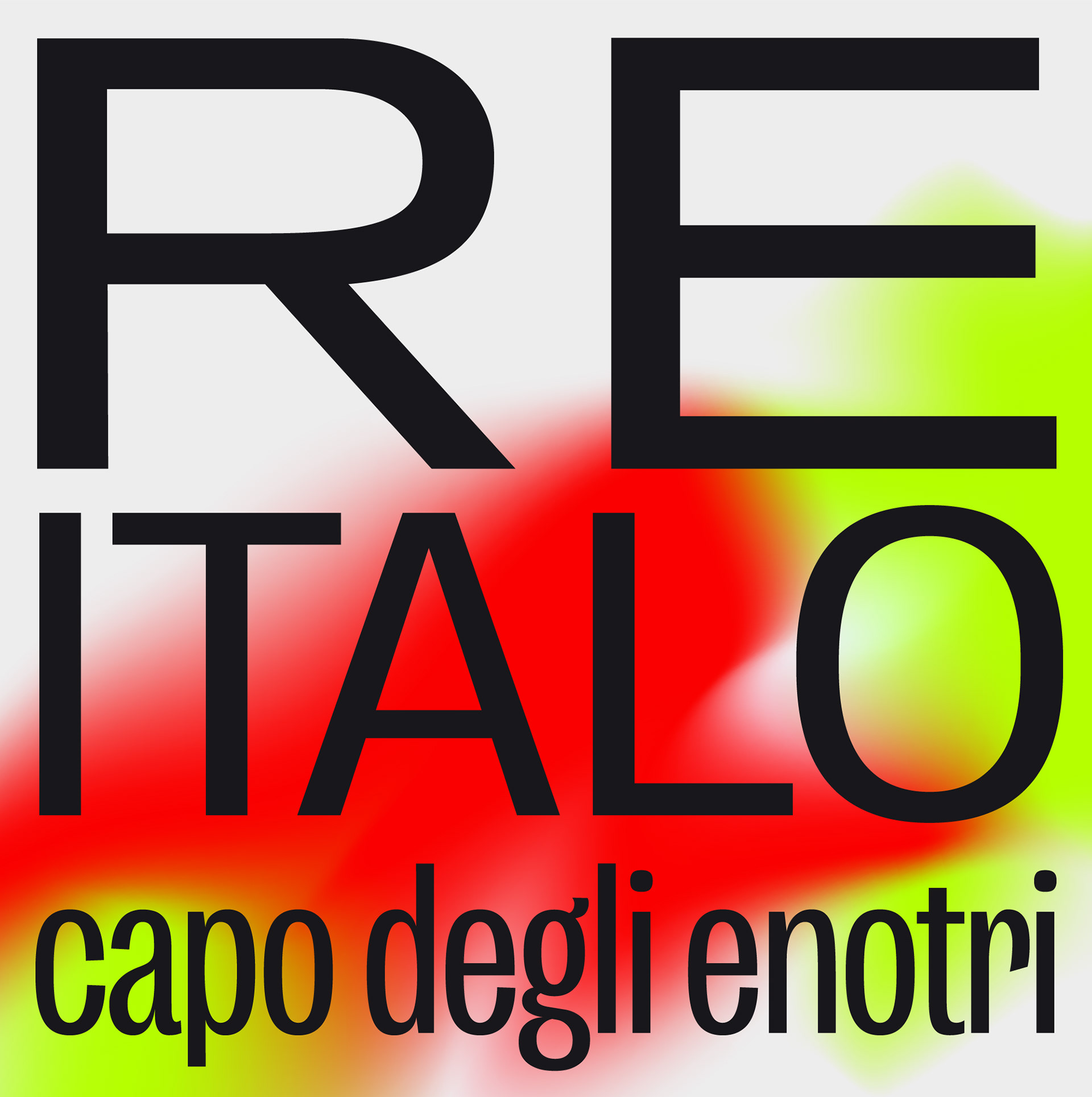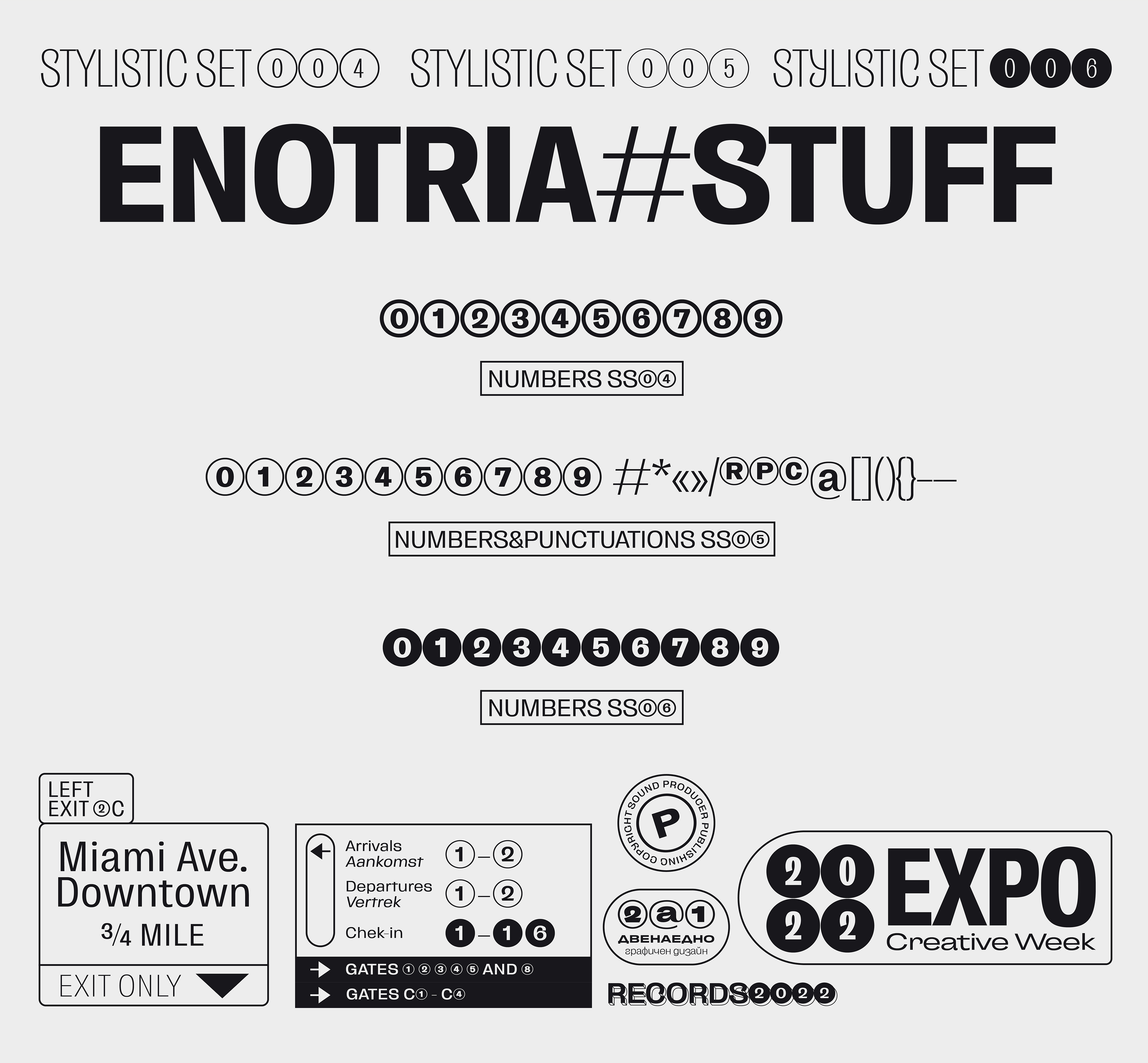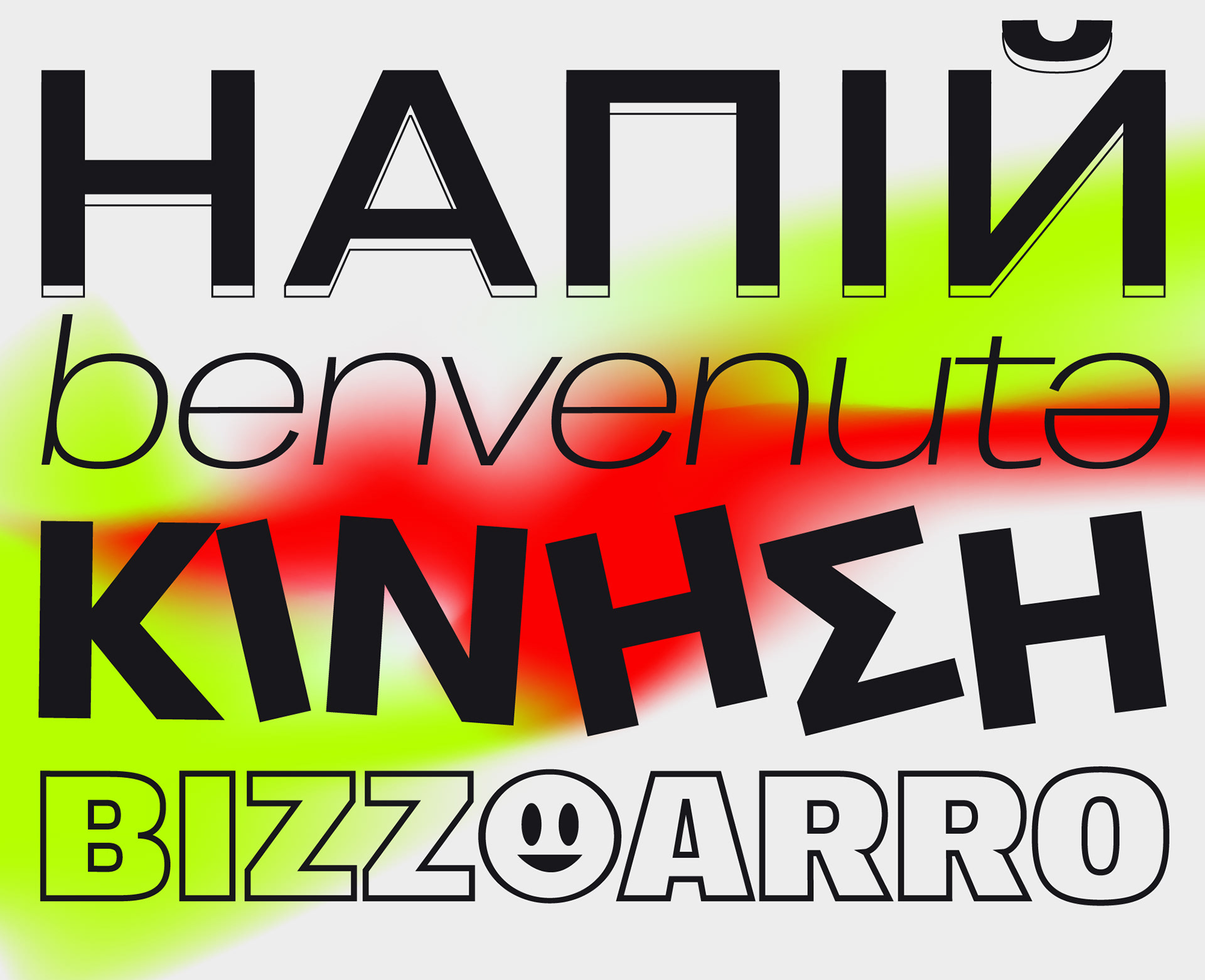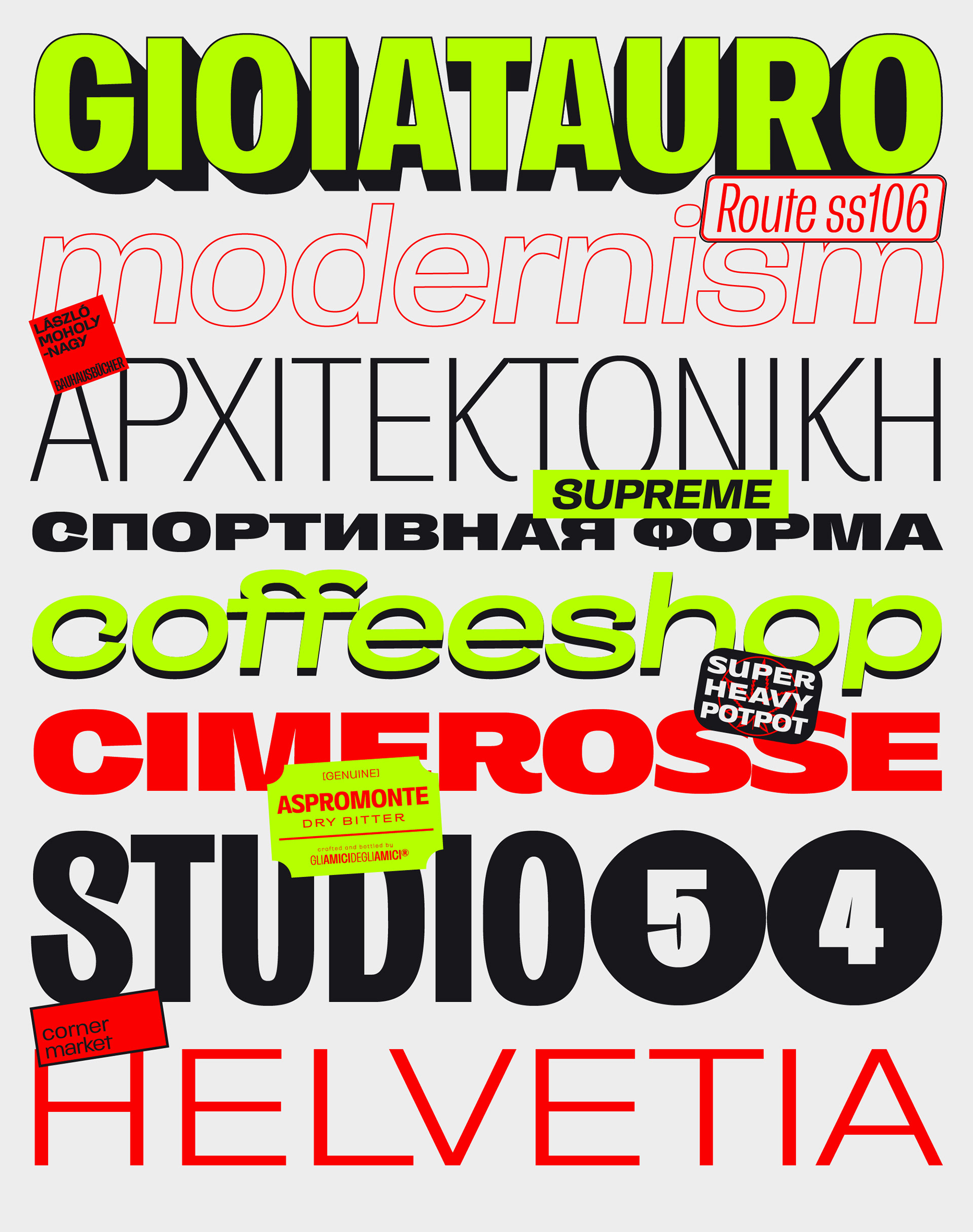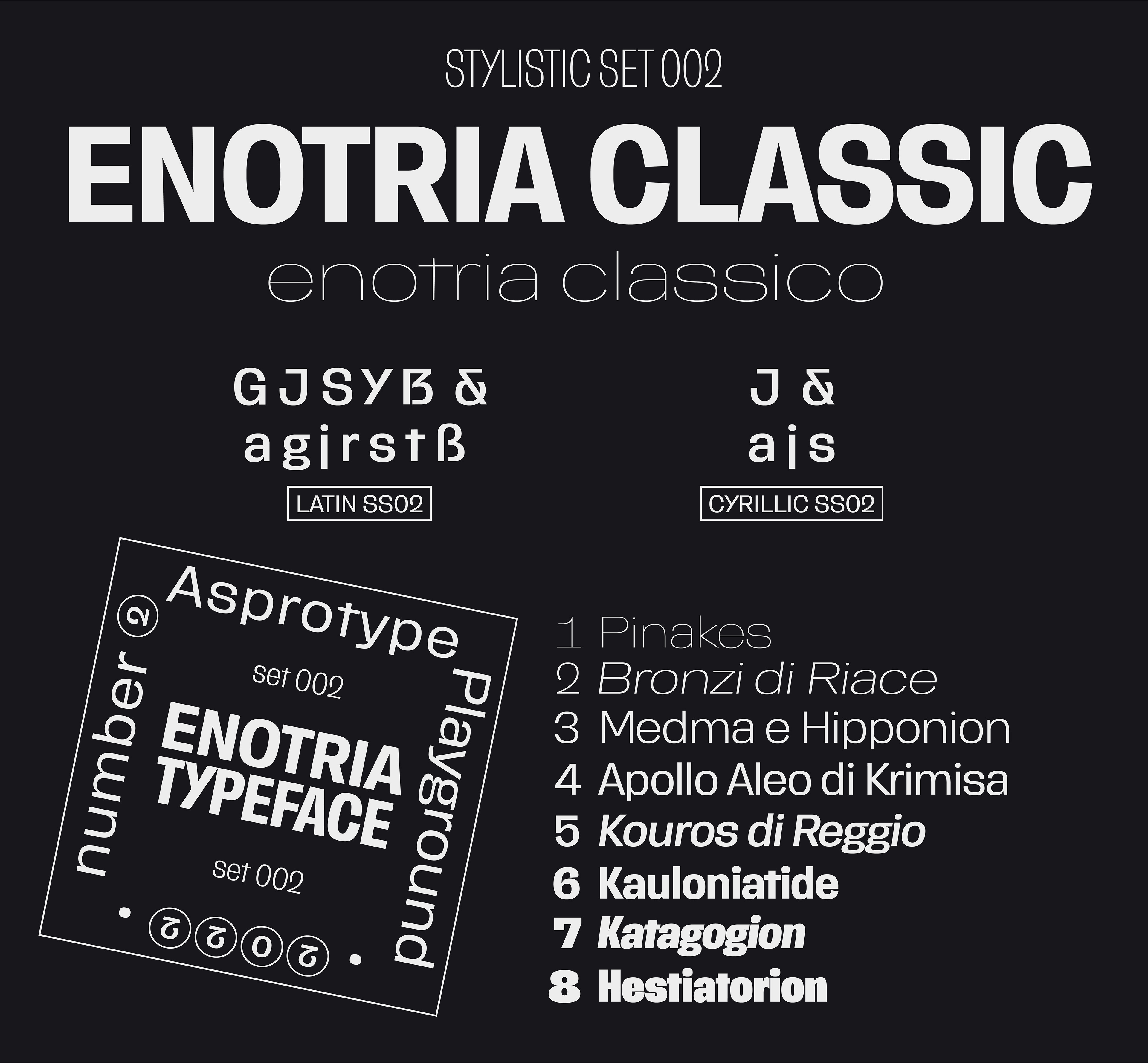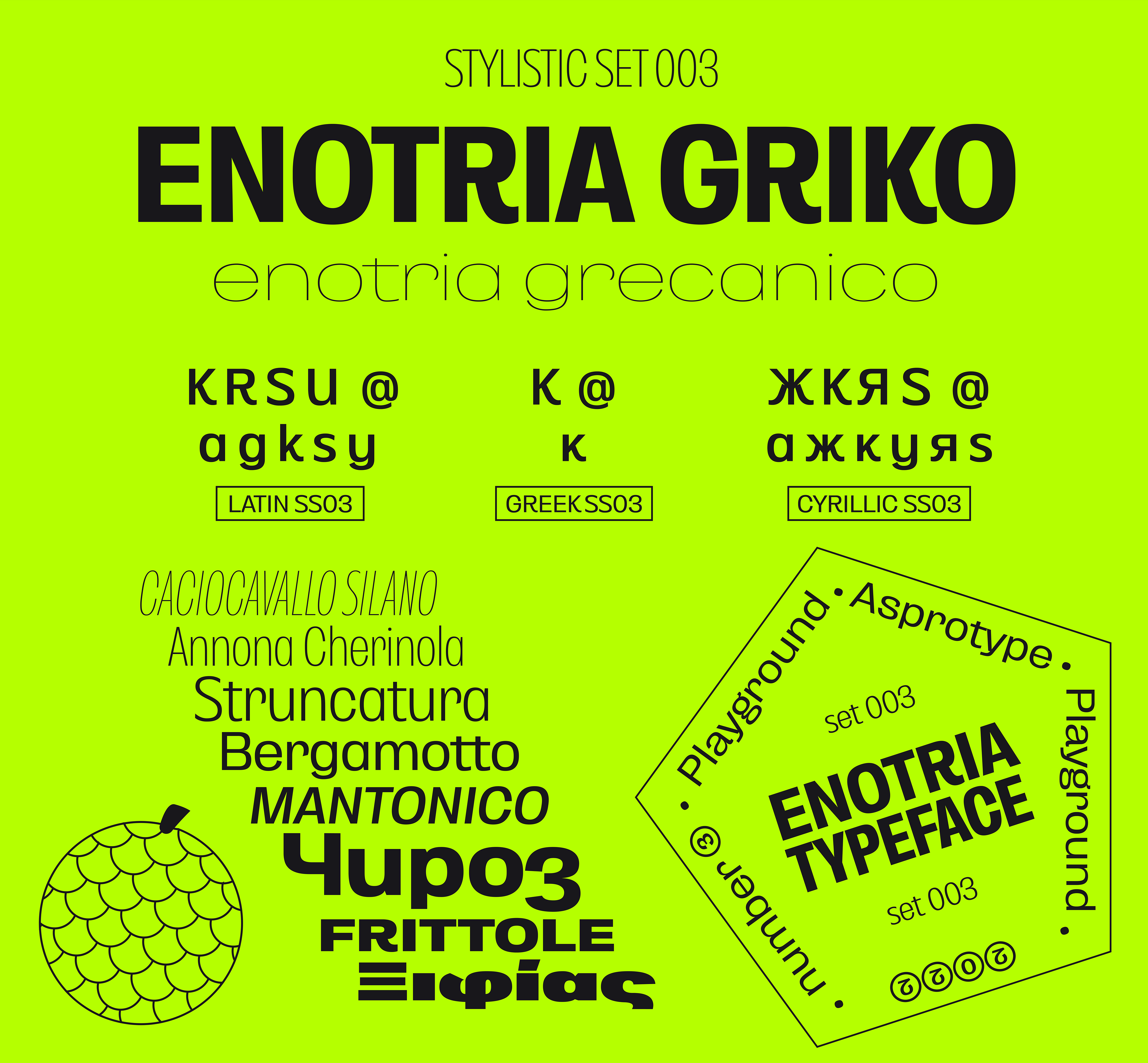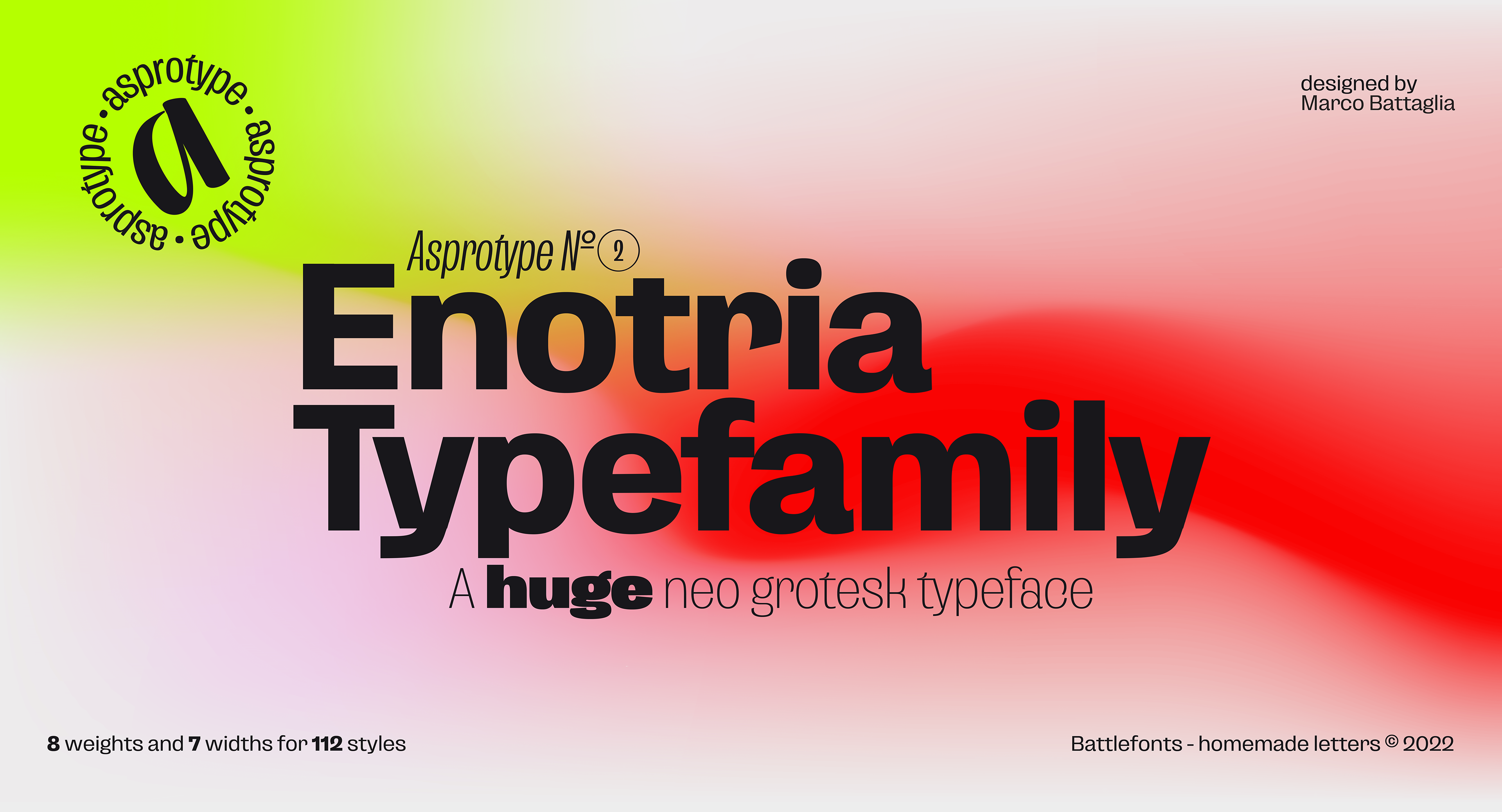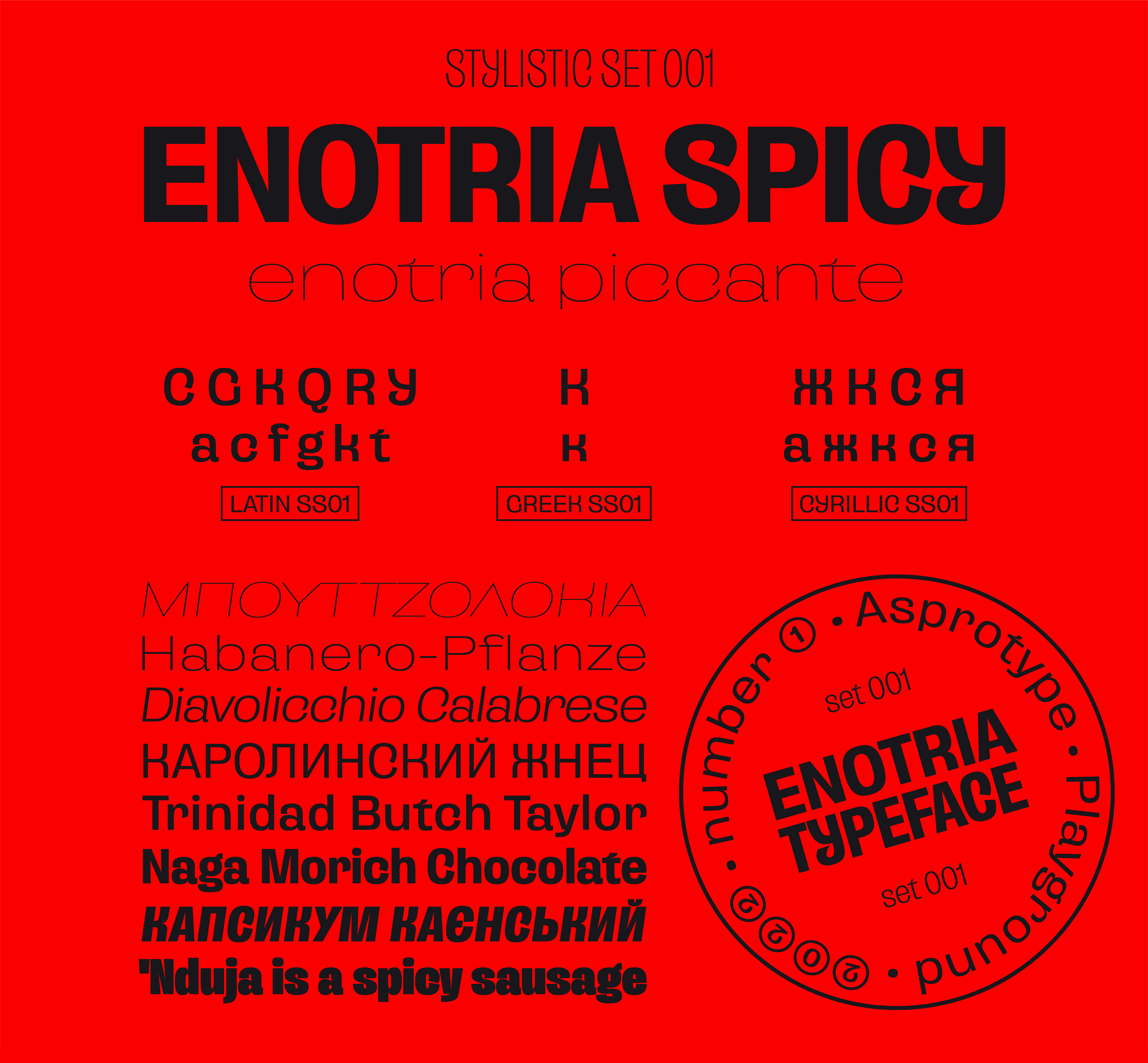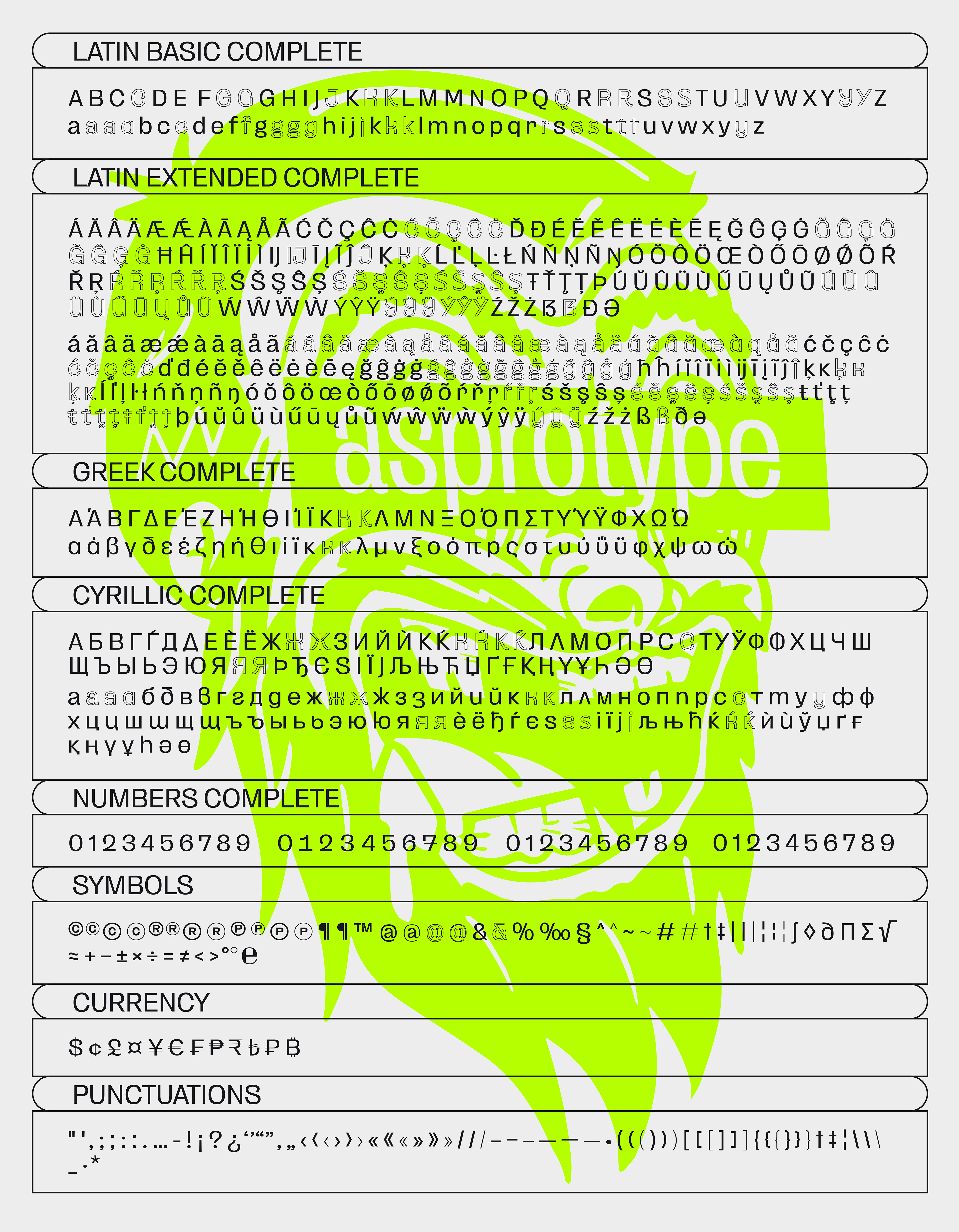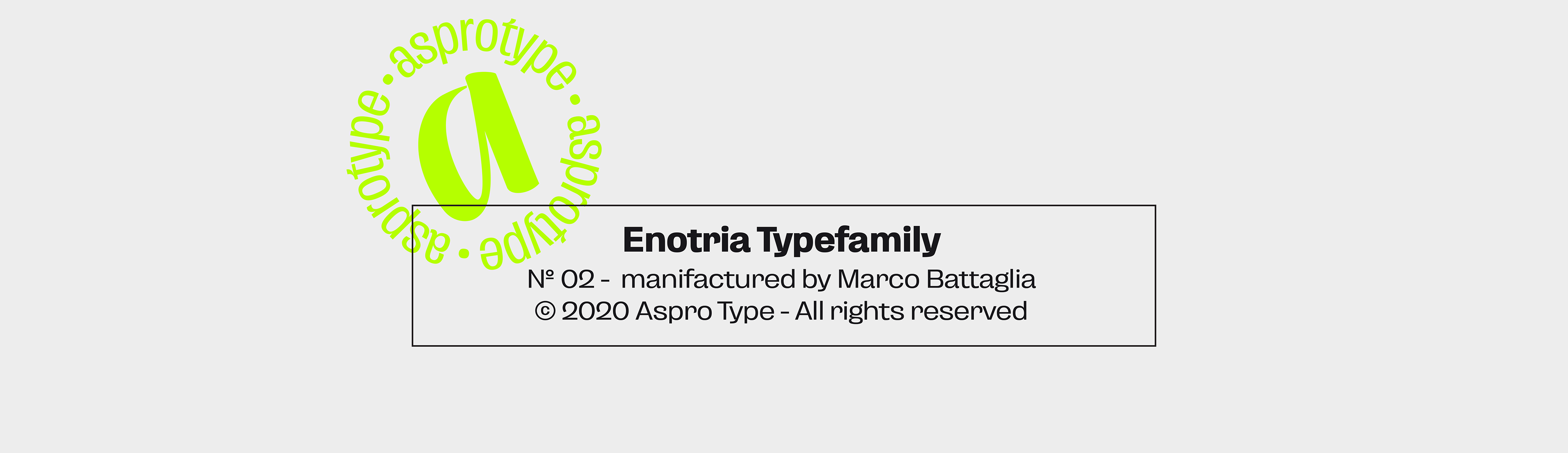
Enotria is a contemporary neo-grotesk typefaces inspired by the Swiss school but with a Calabrian’s soul (south Italy region).
It is composed by 8 weights and 7 widths for 112 styles with also 4 stylistic set for the letters, 2 stylistic set for numbers, 1 more stylistic set for symbols and punctuations, for three languages scripts.
Enotria sports elegant 8° italic angle and a lot of adjustment between the letters for a better legibility as well as true fractions, ordinals, tabular and old style figures, numerators and denominators.
Enotria typefamily is more then a typeface, it is a huge design and typographic system, flexible and suitable for any project.